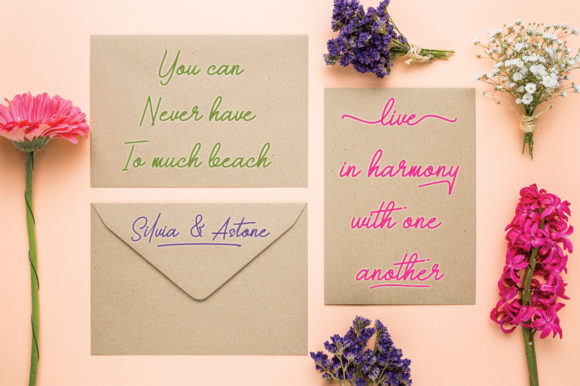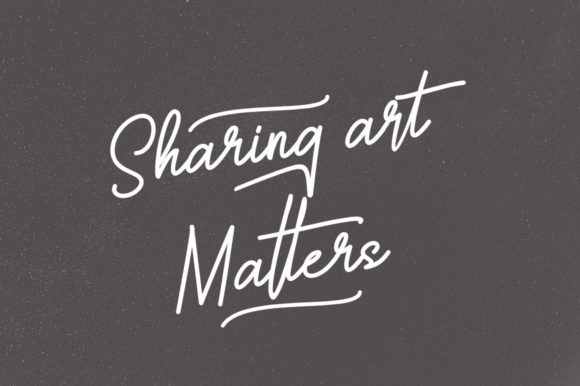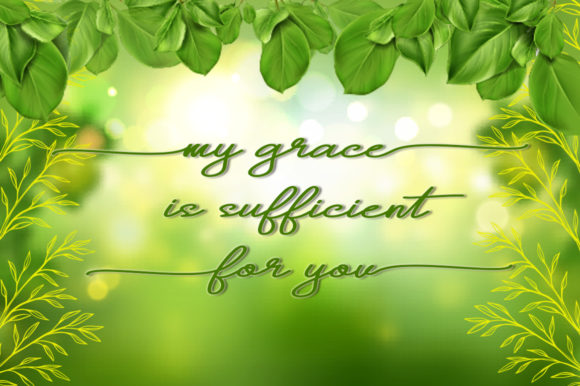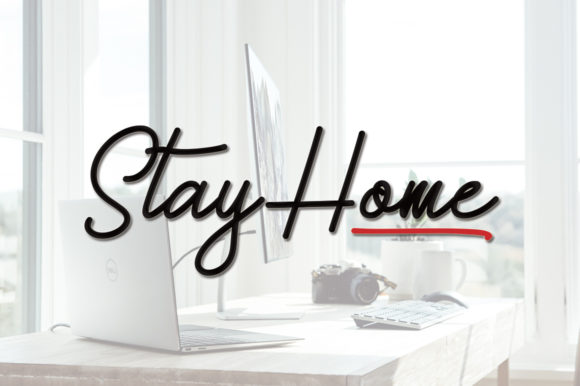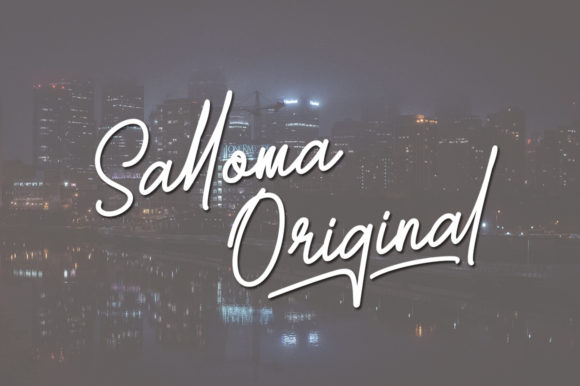
Cattaya Rusty Font: Elevate Your Designs with Elegance
Are you on the hunt for a font that exudes elegance and sophistication? Look no further than Cattaya Rusty, a beautifully crafted handwritten font that’s sure to become your new favorite. With its unique blend of rustic charm and refined style, this font is perfect for designers and crafters looking to add a touch of luxury to their projects.
What Makes Cattaya Rusty Special?
Cattaya Rusty is more than just a font – it’s an exquisite piece of art that will elevate your designs to new heights. Here are just a few features that set it apart:
- PUA Encoding: Cattaya Rusty is PUA (Private Use Area) encoded, which means you can access all of the glyphs and swashes with ease. This makes it incredibly easy to use and customize, even for those without extensive design experience.
- Varying Baseline: The font features a varying baseline, which gives it a natural, handwritten feel that’s perfect for creating unique and eye-catching designs.
- Smooth Lines: The lines in Cattaya Rusty are smooth and flowing, creating a sense of elegance and refinement that’s hard to find in other fonts.
- Gorgeous Glyphs: The font includes a wide range of gorgeous glyphs, including stunning alternates that will add a touch of sophistication to any design.
Cattaya Rusty is a versatile font that’s perfect for a wide range of design projects, from:
- Branding and Packaging: Use Cattaya Rusty to create stunning logos, labels, and packaging that will make your products stand out.
- Stationery and Invitations: Add a touch of elegance to your stationery, invitations, and greeting cards with this beautiful font.
- Digital Design: Cattaya Rusty is perfect for digital designers looking to create stunning social media graphics, blog headers, and more.
- Crafting and Scrapbooking: Crafters and scrapbookers will love using Cattaya Rusty to add a personal touch to their projects.
Why Choose Cattaya Rusty?
With so many fonts on the market, why choose Cattaya Rusty? Here are just a few reasons:
- Unique and Eye-Catching: Cattaya Rusty is a truly unique font that will make your designs stand out from the crowd.
- Elegant and Refined: The font’s elegant and refined style makes it perfect for designers and crafters looking to add a touch of sophistication to their projects.
- Easy to Use: With its PUA encoding and user-friendly design, Cattaya Rusty is easy to use, even for those without extensive design experience.